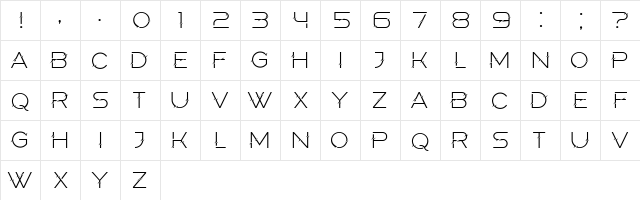
Elderberry Regular
Design Context for Elderberry Typeface
Elderberry is a composed and adaptable typeface that performs quietly and consistently across a wide range of design contexts.